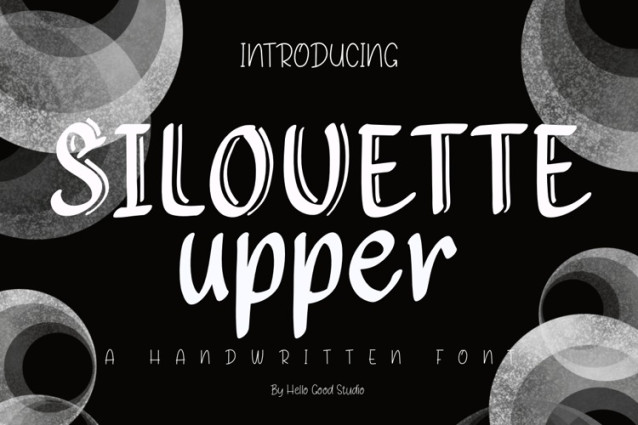
Silouette Upper Font
Silouette Upper Font is a modern and playful display font designed to bring a touch of artistic flair to your creative projects. With its unique, hand-drawn feel and stylized curves, this font perfectly balances elegance with a casual, friendly vibe.